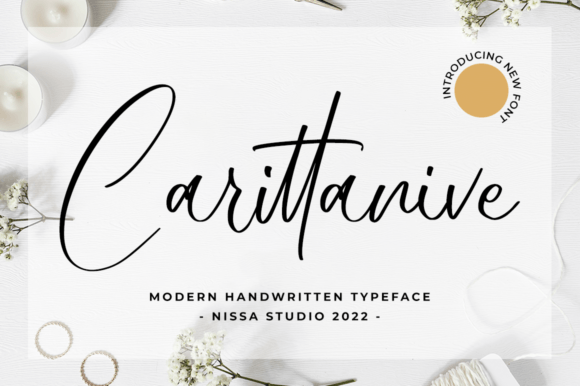
Introduce the Carittanive Font: A Stroke of Modern Elegance
In a world of digital monotony, Carittanive Font emerges as a beacon of creativity, a stroke of modern elegance that breathes life into your designs. Crafted by the skilled hands of NissaStudio, this stunning handwritten font is an artistic masterpiece that invites you to add a touch of romance and sophistication to your next project.
Unleash Your Creativity with Unmatched Versatility
With Carittanive Font, the possibilities are endless. Whether you're designing enchanting greeting cards, captivating headlines, eye-catching logos, or any creative endeavor that demands a touch of elegance, this versatile script font is your perfect companion. Its wide range of applications makes it a must-have in your design toolkit.
Experience the Beauty of Effortless Charm
Carittanive Font's enchanting glyphs and swashes are effortlessly accessible, thanks to its PUA encoding. With a few simple clicks, you can unlock a world of creative possibilities, adding intricate details and flourishes that bring your designs to life. Say goodbye to tedious editing and embrace the beauty of seamless font artistry.
Immerse Yourself in a World of Romance and Elegance
Carittanive Font is more than just a collection of letters; it's an expression of love, a whisper of elegance that transforms your designs into heartfelt creations. Its romantic undertones make it the perfect choice for wedding invitations, love letters, and any project that calls for a touch of heartfelt charm.
Elevate Your Designs to New Heights
With Carittanive Font, mediocrity takes a back seat as your designs ascend to new heights of visual appeal. Its modern aesthetic adds an instant touch of sophistication, while its handwritten charm creates a sense of intimacy and connection. Prepare to captivate your audience and leave a lasting impression with every design you create.